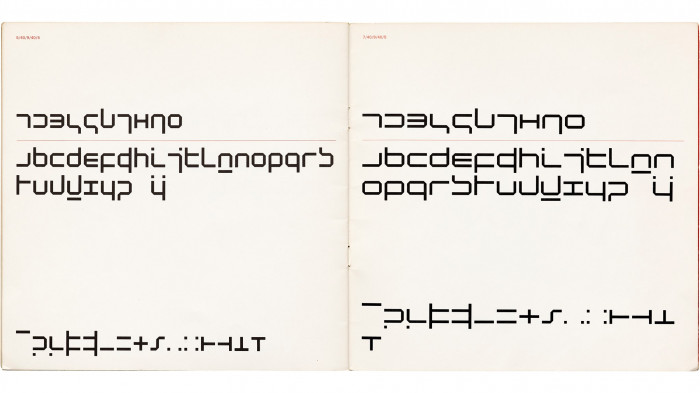
• Wim Crouwel's New Alphabet was made to be a modular font, though i've only seen the 5x5 version be digitalised into an actual font. So here's an attempt at recreating one of the few featured on the original quadrat print.
The same one that's featured in the cover for Joy Division's Substance!
original:
Makes me realise his New Alphabet would really shine as a variable font! Nice one.
@Cookielord OMG I WAS TALKING ABT THAT WITH MY FRIEND YESTERDAY!
somebody already did that (kinda) as a web app! here -> http://witregel.nl/newalphabet/
@Ptles, hats off to whoever made that!